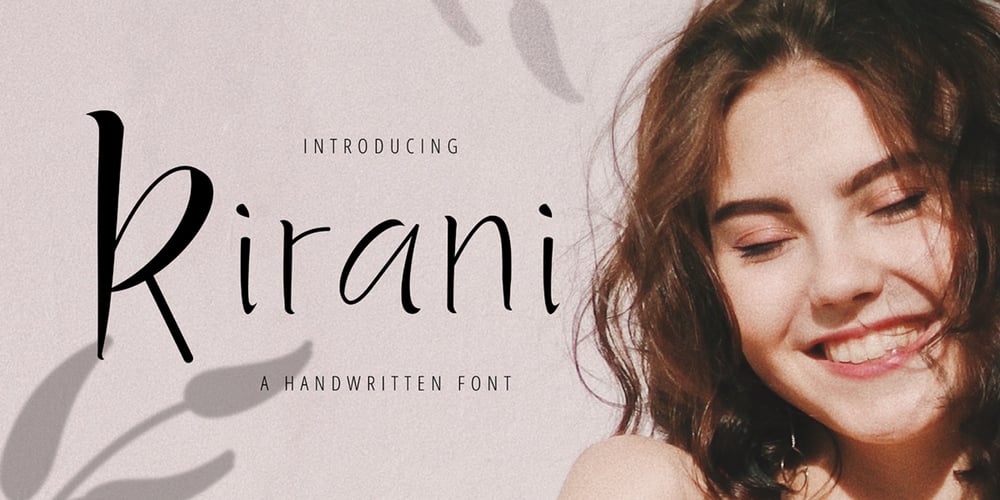
Kirani
Kirani font
Kirani Font Family was designed by Andrea Zudip Aggasi and published by Nirmalagraphics. Kirani contains 1 styles and family package options. Kirani is a beautiful fonts that I made with the aim to meet the needs of the industry in the creative world for those who are bored with ordinary script fonts. You can also use Kirani for your promotional needs, whether it’s for logos, flyers, magazines, brochures or even for advertising. Oh yes, and this font also has multilingual support.